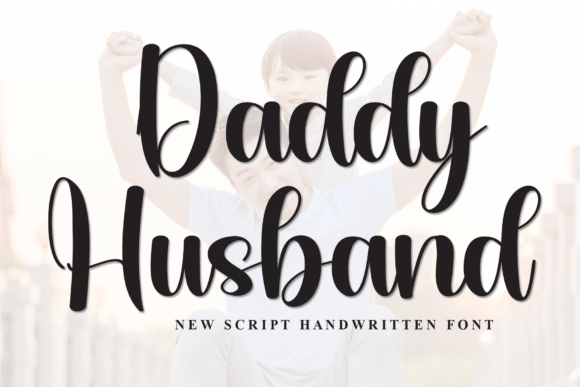
Daddy Husband Font: Elevate Your Designs with Elegance and Sophistication
In the world of typography, few fonts manage to strike a balance between elegance and modernity. However, Daddy Husband Font achieves this feat with remarkable finesse. This stylish script font is designed to bring a touch of sophistication and contemporary charm to various design projects. Whether you’re a designer, crafter, or simply someone who appreciates beautiful typography, Daddy Husband Font is an excellent addition to your toolkit.
The Essence of Daddy Husband Font
Daddy Husband Font is characterized by its graceful strokes, fluid curves, and meticulously crafted letterforms. These features combine to create a font that not only captures the essence of hand-drawn calligraphy but also infuses it with a modern twist. The result is a typography that feels both organic and polished, making it suitable for a wide range of applications.
Key Features of Daddy Husband Font
- Elegant and Modern Design: The font boasts a stylish and contemporary design that can instantly elevate the aesthetic of any project.
- Graceful Strokes and Fluid Curves: These elements contribute to the font’s sophisticated and refined look, making it perfect for designs that require a touch of elegance.
- Versatility: Daddy Husband Font can be used across various platforms and design materials, including logos, invitations, packaging, and social media graphics.
- Polished Details: The careful attention to detail in the font’s design ensures that it delivers a high level of visual appeal.
Applications of Daddy Husband Font
The versatility of Daddy Husband Font makes it an excellent choice for a variety of design projects. Here are some of the key areas where this font can make a significant impact:
Logos and Branding
For businesses looking to establish a strong brand identity, Daddy Husband Font can be used to create elegant and memorable logos. Its unique style can help brands stand out and convey a sense of sophistication and professionalism.
Invitations and Stationery
Whether it’s a wedding invitation, a birthday party invite, or any other special occasion, this font can add a touch of class and elegance. It makes the invitation feel more personal and exclusive.
Packaging Design
In the competitive world of product packaging, standing out on the shelves is crucial. Daddy Husband Font can be used to create eye-catching packaging that not only appeals to potential customers but also communicates the brand’s values and aesthetic.
Social Media Graphics
For social media influencers and businesses, maintaining a consistent visual brand identity is key. This font can be used to create engaging and stylish graphics that resonate with the audience and enhance the brand’s online presence.
Why Choose Daddy Husband Font?
Choosing the right font for a design project can be overwhelming, given the numerous options available. However, Daddy Husband Font stands out for several reasons:
- Unique Style: It offers a distinctive style that can help designs stand out.
- Ease of Use: The font is designed to be user-friendly, making it easy to incorporate into various design projects.
- High Versatility: It can be used for both digital and print designs, offering flexibility across different mediums.
- Constant Updates: The creators of the font are committed to providing updates and improvements, ensuring that users have access to the latest features and enhancements.
Daddy Husband Font is more than just a typeface; it’s a design tool that can transform the aesthetic of any project. Its elegant and modern design, combined with its versatility and visual appeal, makes it an invaluable asset for designers and crafters. Whether you’re looking to create a stunning logo, an elegant invitation, or captivating social media graphics, Daddy Husband Font is an excellent choice. Embrace the elegance and sophistication it brings to your designs and elevate your creative projects to new heights.